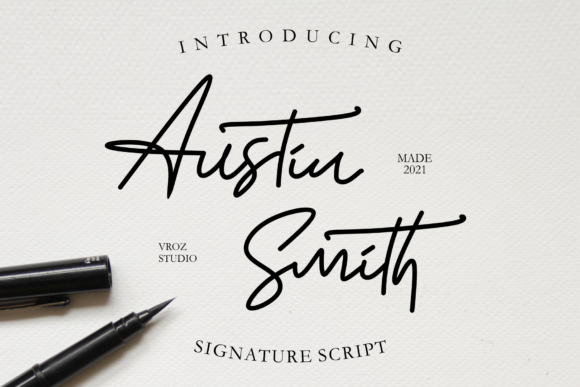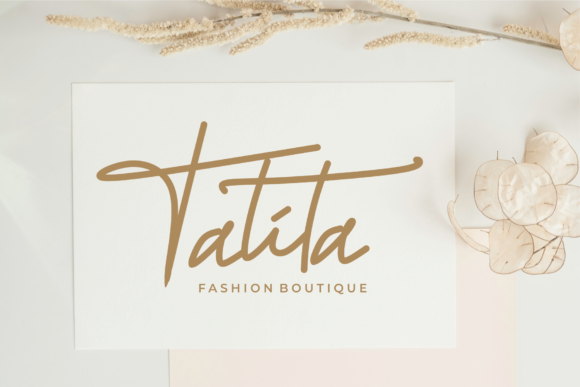
Austin Smith Font
Austin Smith is a thin and flowing handwritten font. It maintains its classy calligraphic influences while feeling contemporary and fresh. Fall in love with it and bring your projects to the highest levels!